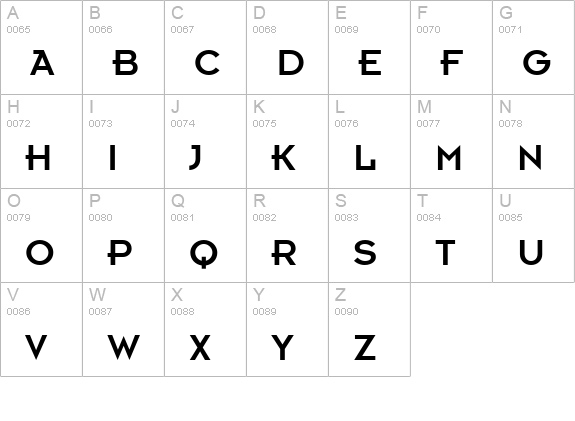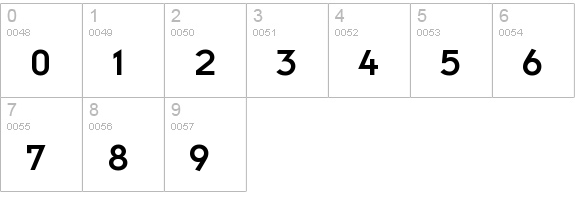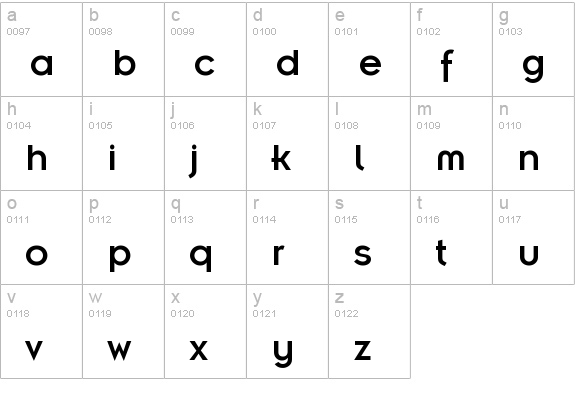
Kernel SSi Font Details
Kernel SSi font is a stunning typeface that combines elegance and versatility. With its clean lines and sleek design, this font is perfect for a wide range of projects, from logos and branding to headlines and body text. One of the unique features of Kernel SSi font is that it is free to download. You can easily access this font at FontsMarket.com, a trusted source for high-quality fonts. Whether you are a professional designer or a beginner, this font is a valuable addition to your font library. What sets Kernel SSi font apart is its ability to seamlessly blend into any design style. Its timeless appeal makes it suitable for both modern and classic designs. The carefully crafted letterforms ensure legibility, even at small sizes, making it an excellent choice for body text in print or digital media. With Kernel SSi font, you have the freedom to experiment and create unique designs that stand out. Its extensive character set includes a variety of alternate glyphs and ligatures, allowing you to customize your typography and add a personal touch to your projects. Whether you are working on a corporate identity, editorial layout, or web design, Kernel SSi font is a reliable choice. Its versatility, combined with its free availability at FontsMarket.com, makes it a must-have font for any designer looking to elevate their work to the next level.